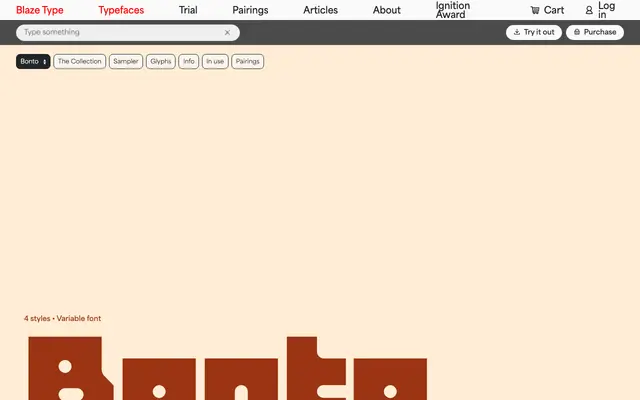
Bonto
Blaze Type · Victor Montet · 2023
A geometric display typeface by Victor Montet built from a deliberately constrained vocabulary of right angles and rounded forms, designed for large-scale and playful typographic composition.
Released by Blaze Type in 2023, Bonto reduces letterforms to a minimal formal system where sharp corners meet circular counters, recalling the logic of modular games like Lego or dominoes. Four weights run from Regular to Black, with the heavier cuts pushing the contrast between solid mass and open round counters. Alternative glyphs for 'e', 's' and 'z' descend below the baseline, giving designers a tool for varying reading rhythm without changing weight.
Bonto is built from a restricted geometric vocabulary of right angles and curves, designed explicitly for large-scale expressive use, which places it firmly in the display category with a geometric formal basis.